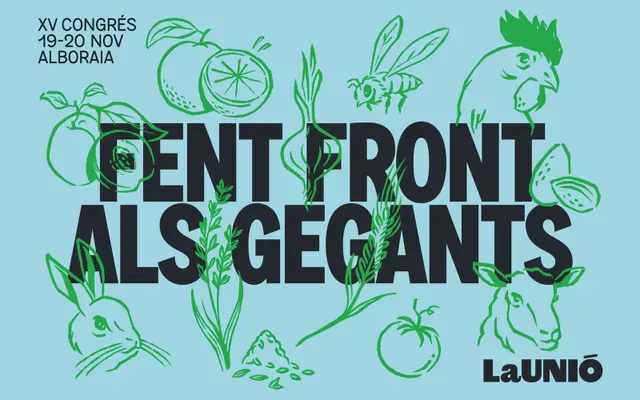
A display grotesque by Florian Paizs spanning six widths and six weights, with calligraphic details that come alive at large sizes.
Originally released as Zoom Grotesque between 2016 and 2019, this 36-style family runs from Narrow Hairline through to Brutal Bold, giving designers considerable range across width and weight. Subtle calligraphic characteristics distinguish it from more neutral grotesques, and an extensive OpenType feature set includes multiple alternate glyphs for letters such as R, Q, t and l. With 1,209 glyphs per weight and broad Latin Plus language support, it covers well over a hundred languages from Afrikaans to Zulu.
Described as a 'brutal yet friendly display sans serif', Zoom Pro sits within the grotesque tradition but with deliberate calligraphic underpinnings and an expressive, display-oriented character.